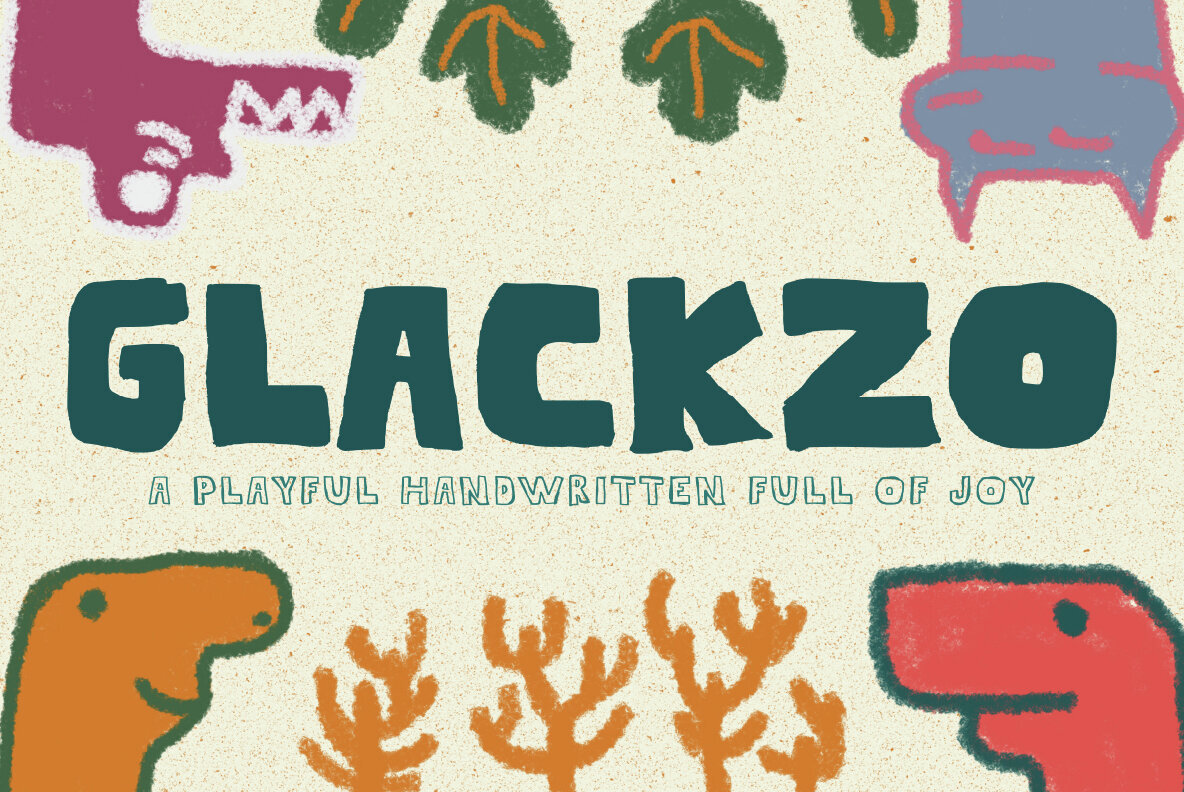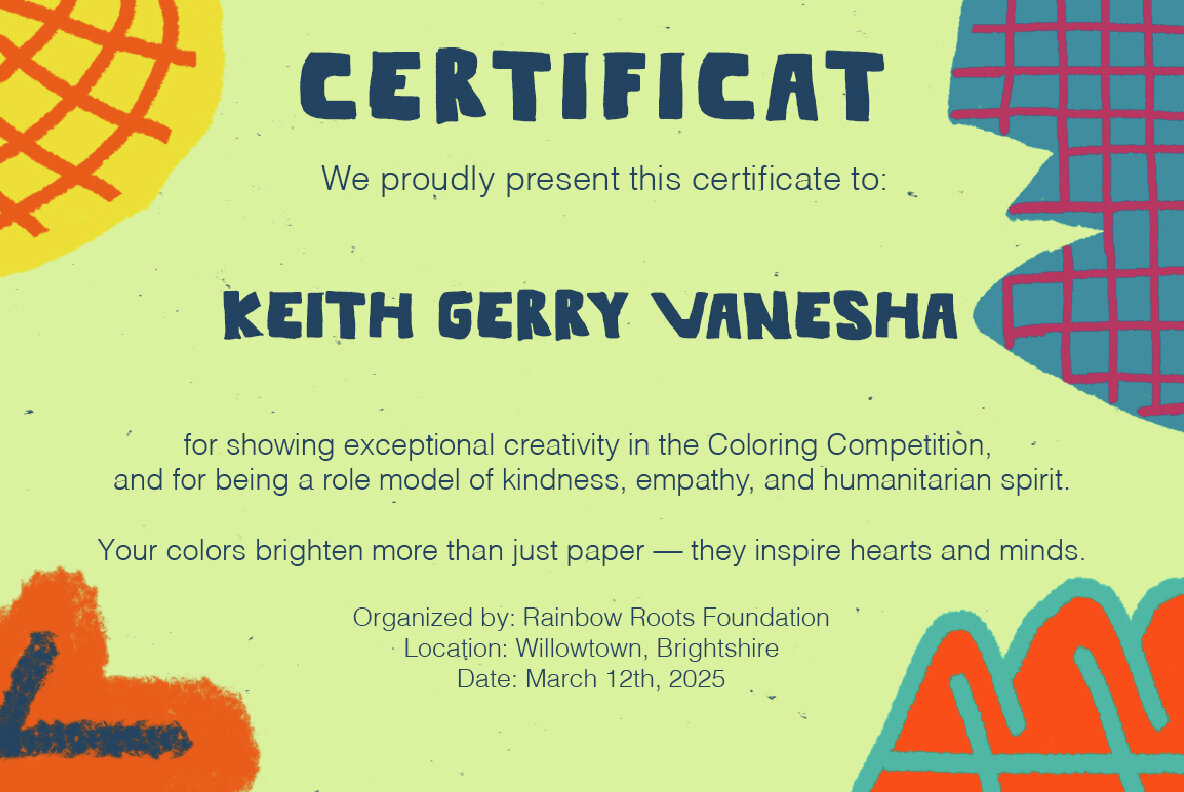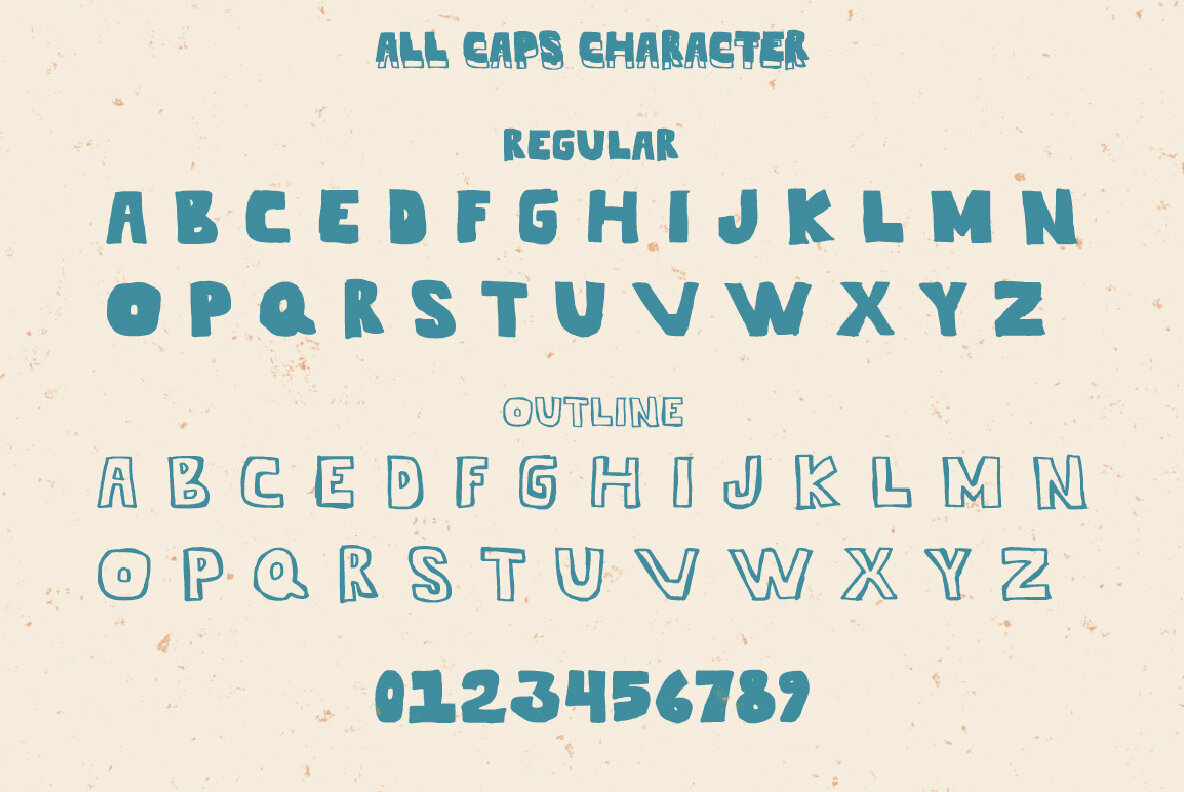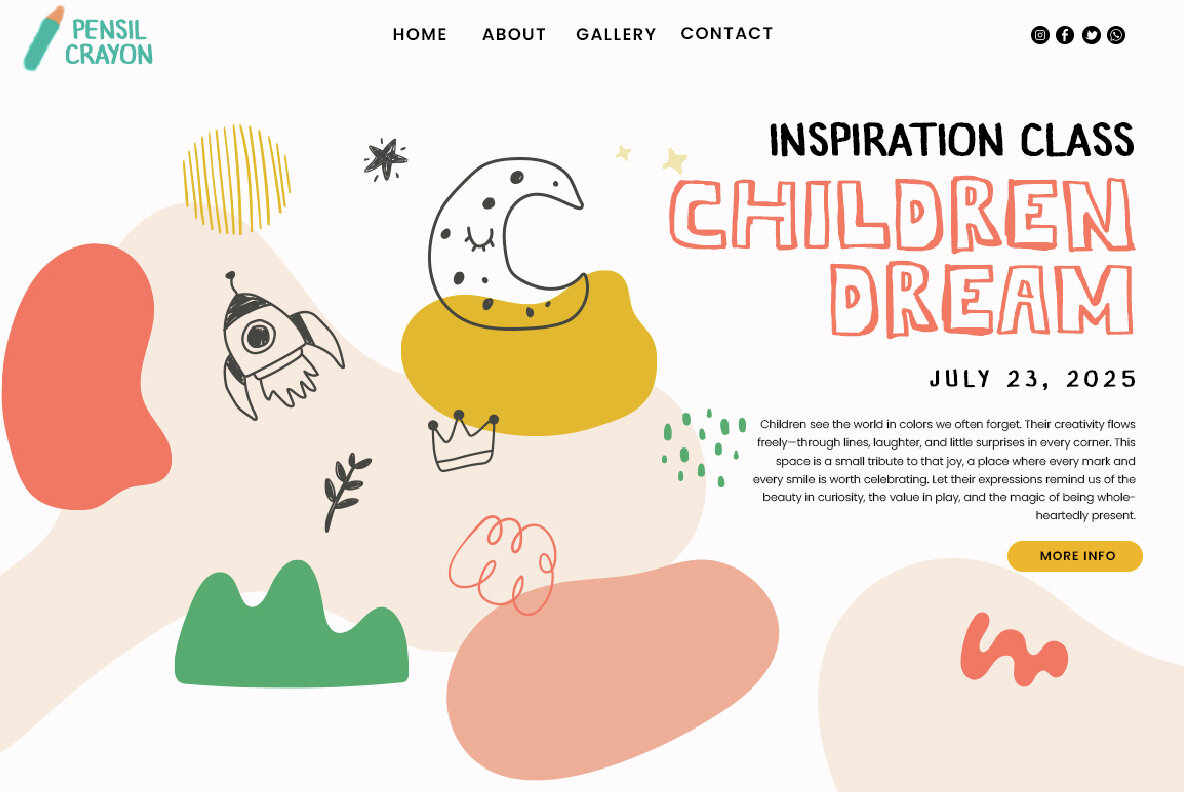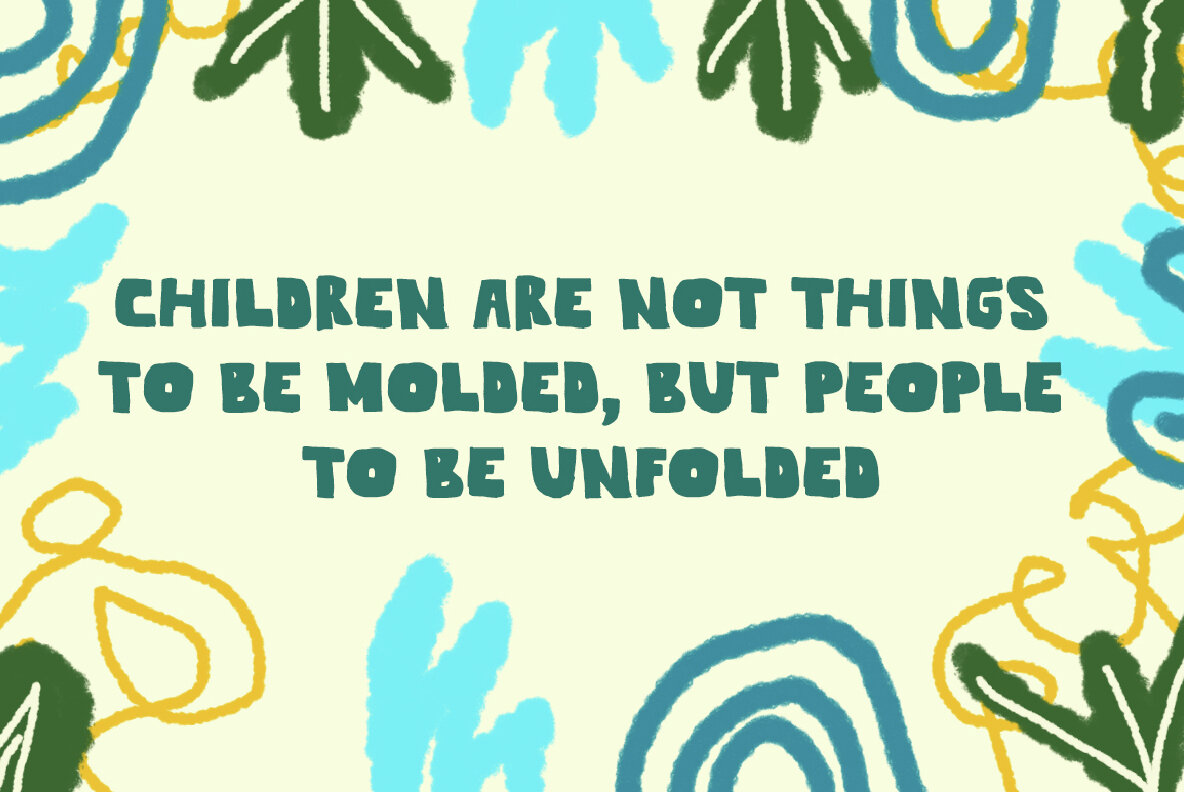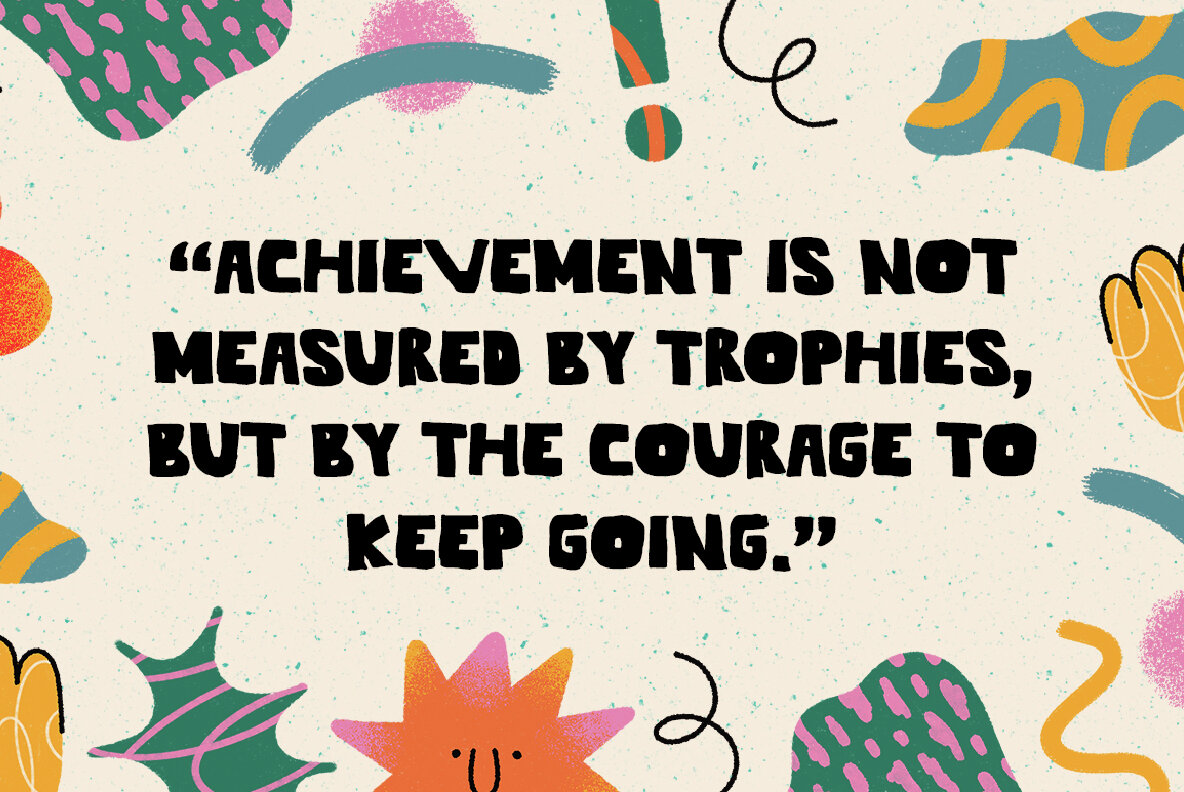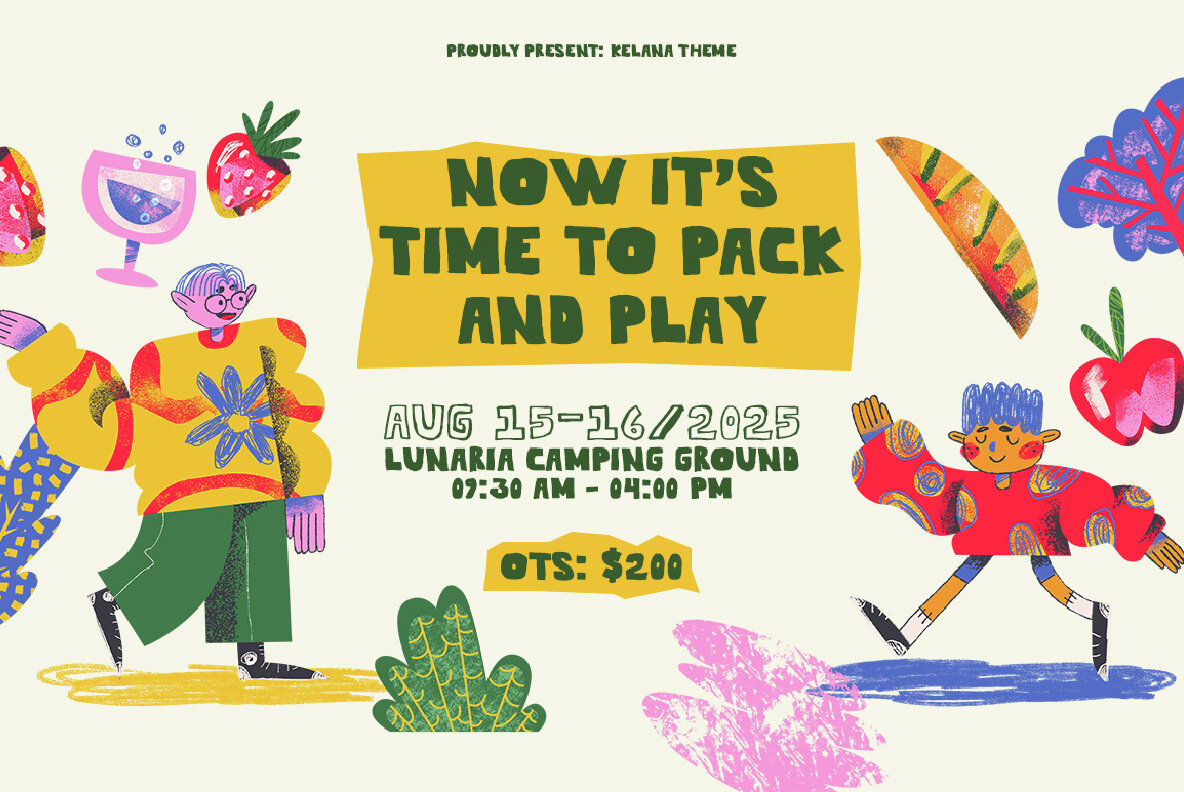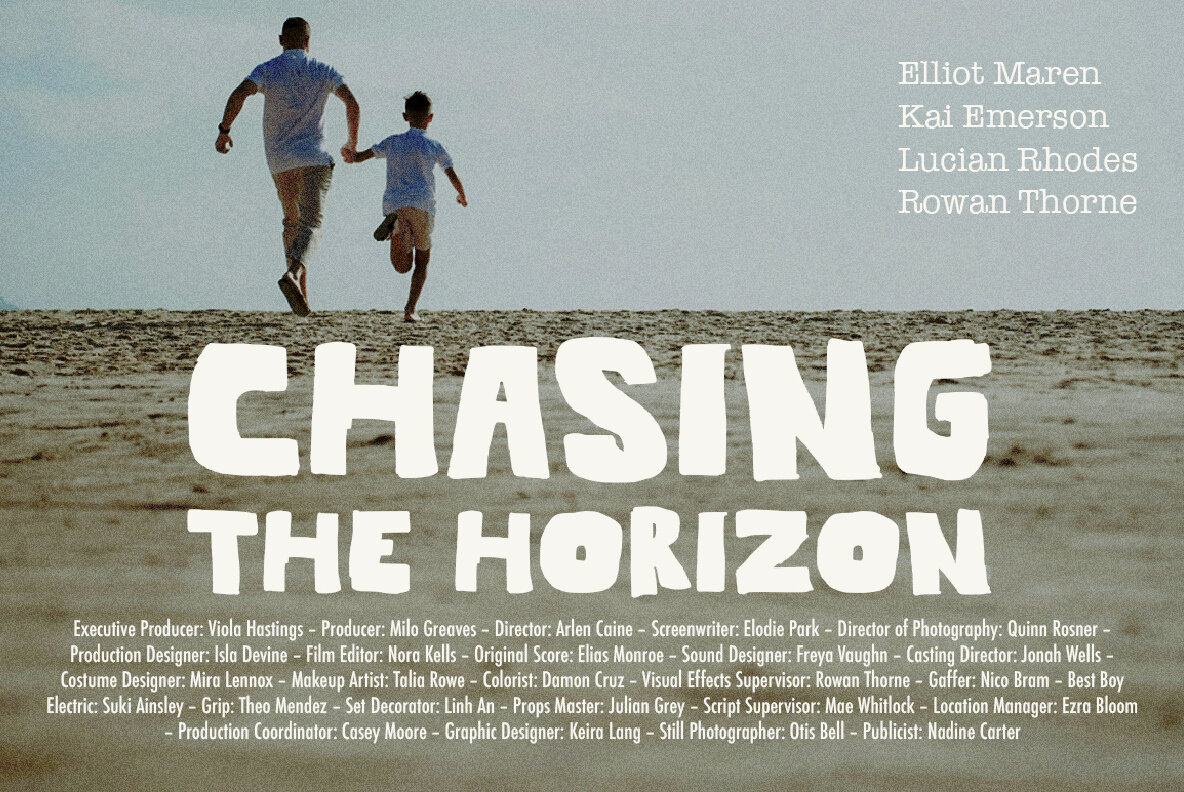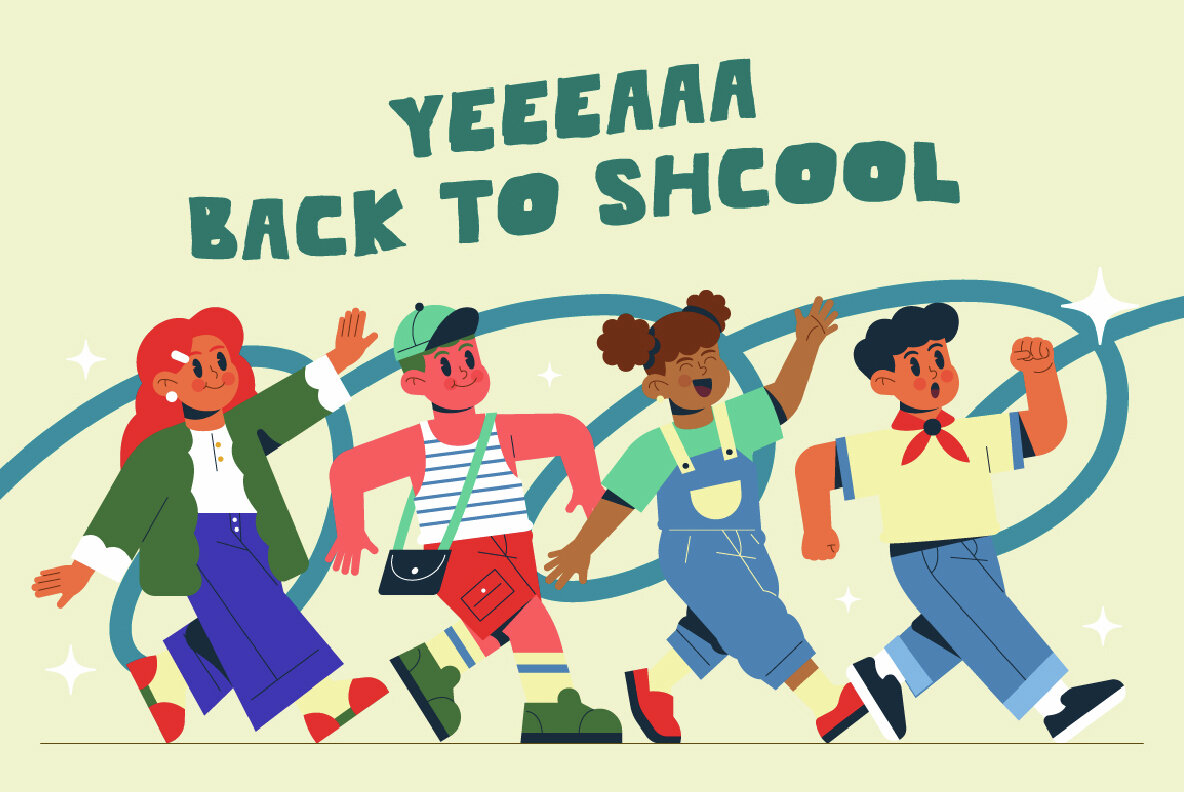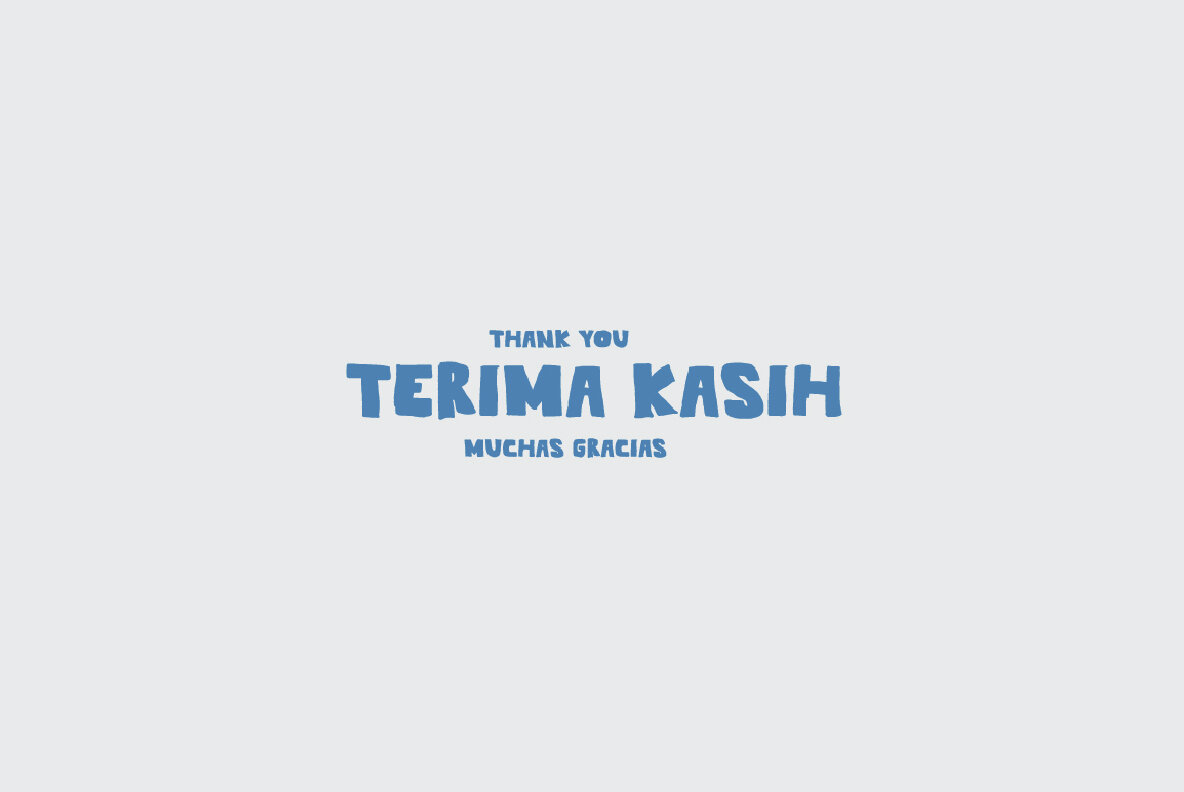
Glackzo Font
Glackzo is a captivating typeface that radiates joy and individuality. With its chunky forms and playful charm, it infuses any project with a whimsical and organic touch, reminiscent of spontaneous sketches. This font's unique character makes it ideal for infusing personality into your designs. Perfect for a range of creative ventures, Glackzo adds a lively flair to children's branding, educational materials, birthday invitations, and more. Each letter in this enchanting typeface celebrates creativity, conveying warmth with its delightful irregularities.Glackzo: A Bold Handwritten Delight